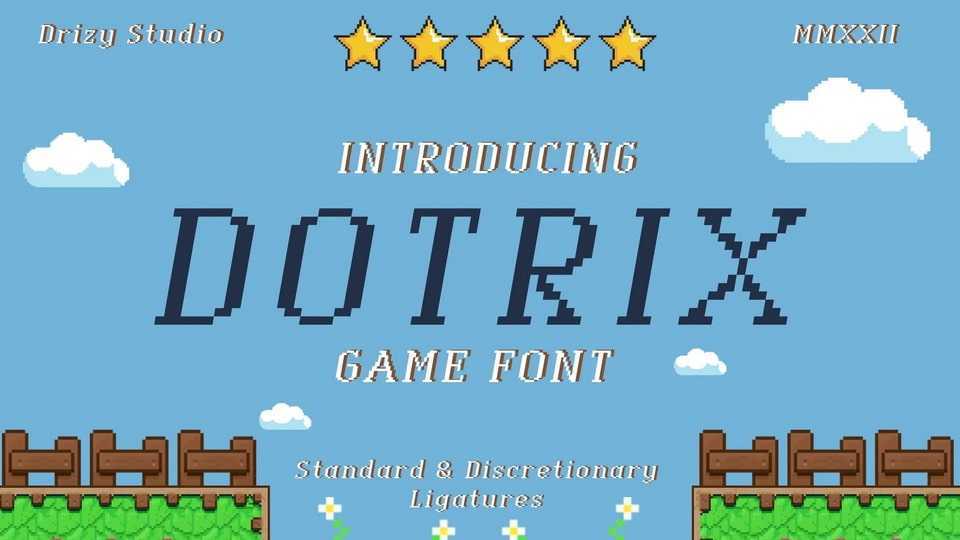
Download Dotrix font, a retro pixel typeface offering all the styles you need for your projects. Dotrix font is perfect for pixel art graphics and games.
Designer: Drizy Studio